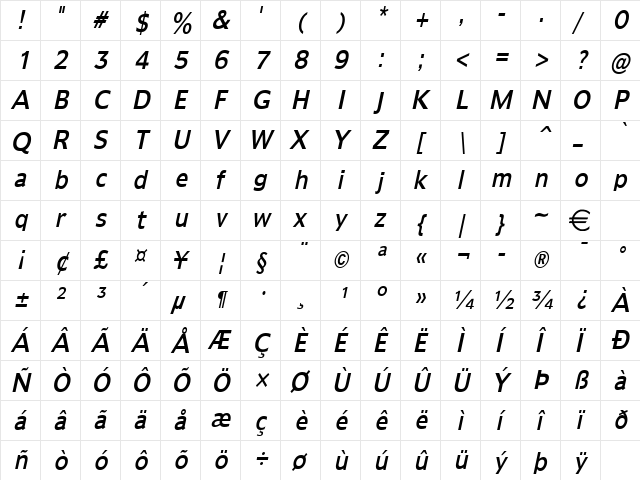
AdamsCondensed Italic Font Preview
Design Context for AdamsCondensed Typeface
AdamsCondensed is a composed and adaptable typeface that performs quietly and consistently across a wide range of design contexts. Its italic angle brings a sense of urgency and motion to the letterforms. The condensed width makes it efficient for tight spaces without sacrificing legibility.
Pro Tip: Try AdamsCondensed for annotation and caption copy alongside an upright companion — the contrast in angle creates a dynamic but ordered typographic system.